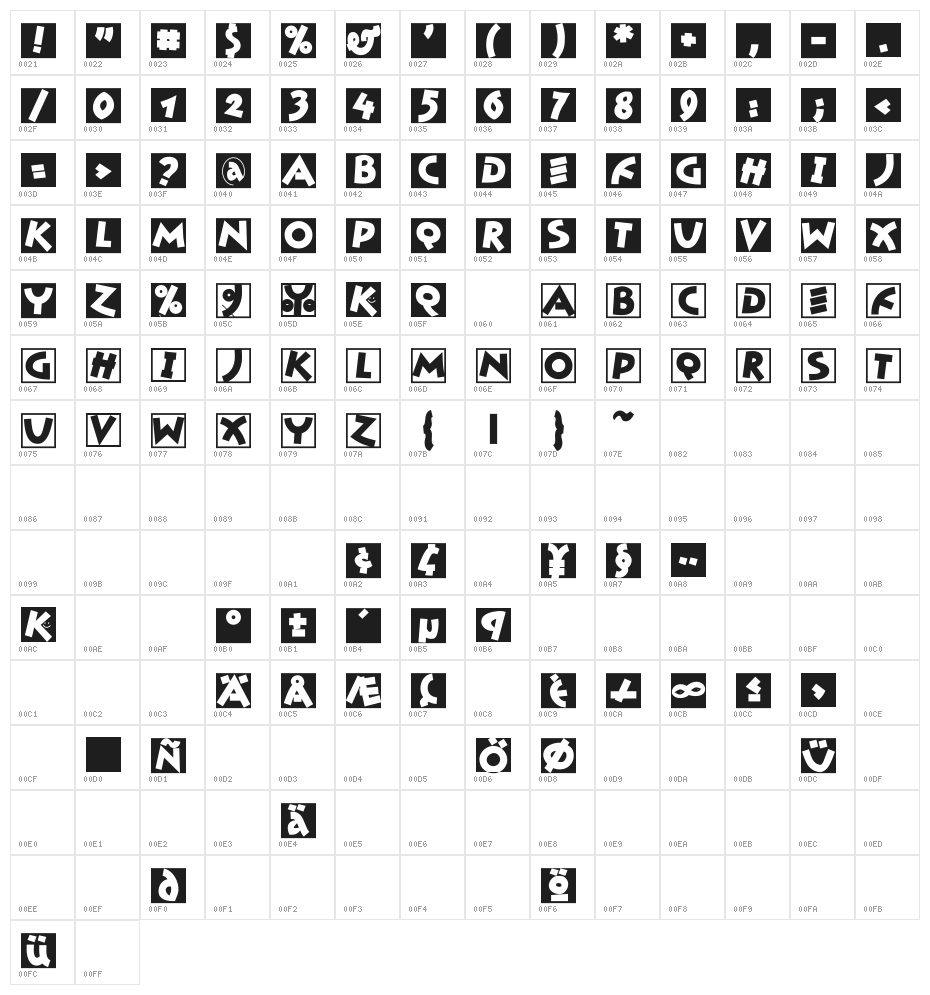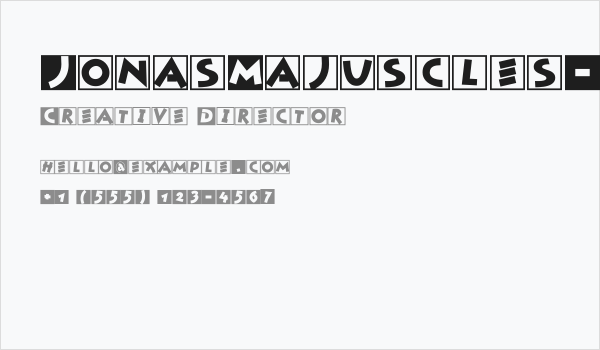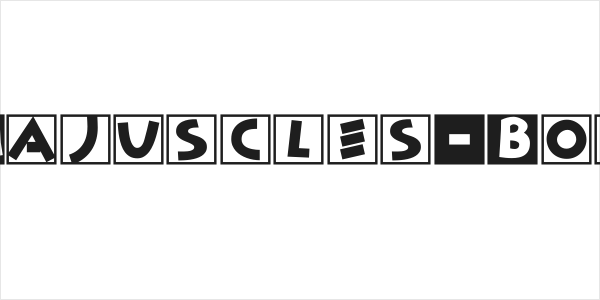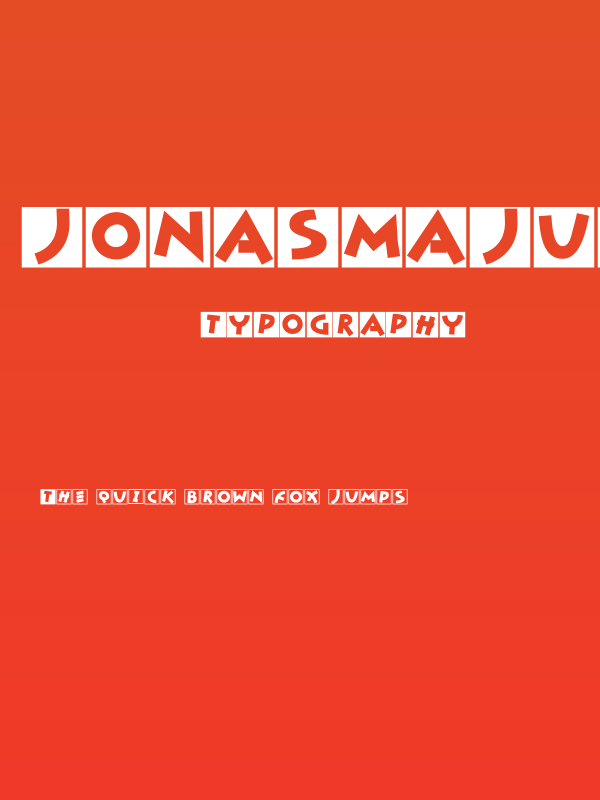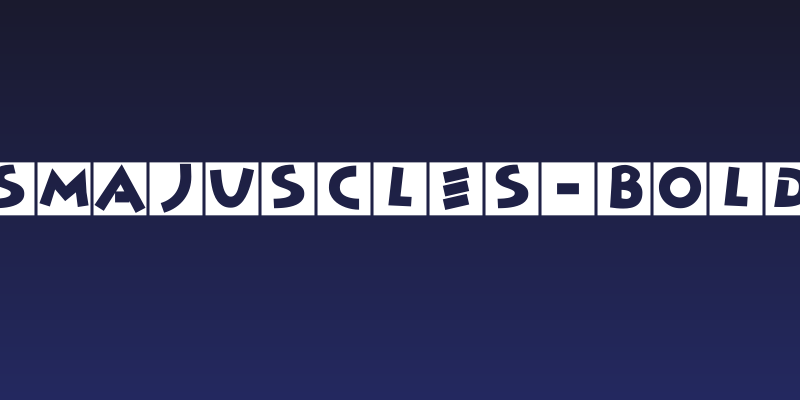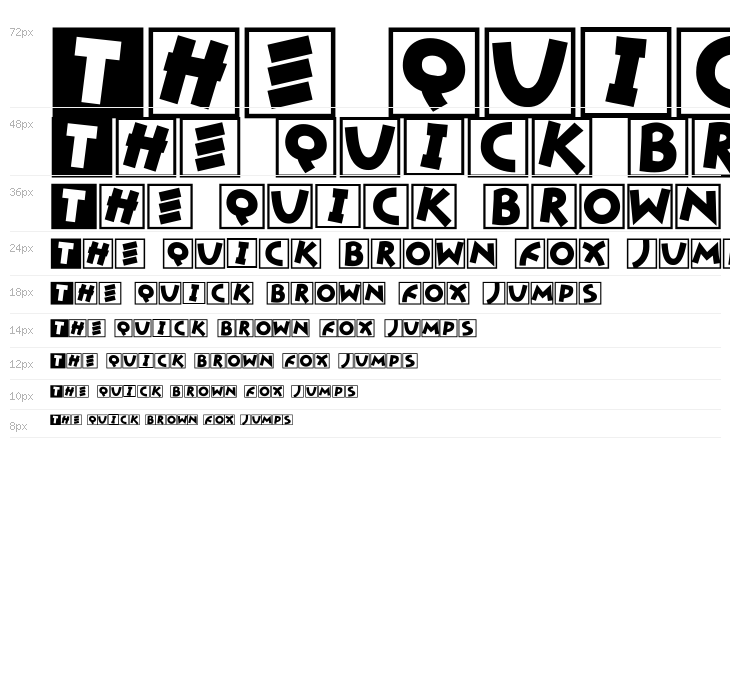
JonasMajuscles-Bold2007 Font
JonasMajuscles-Bold2007 Description
This font features bold, playful characters with a distinctively quirky and dynamic style. Each letter is enclosed in a square, giving it a blocky appearance. The characters have a cartoonish flair, with exaggerated curves and angles that create a sense of movement and energy. The font is highly decorative, making it ideal for eye-catching designs. It includes both uppercase and lowercase letters, numbers, and a variety of special characters. The bold strokes and unique shapes make it stand out, perfect for creative and informal projects.
| Overall Style | Playful, Cartoonish, Decorative |
| Proposed Projects | Ideal for children's books, comic strips, playful branding, and party invitations. |